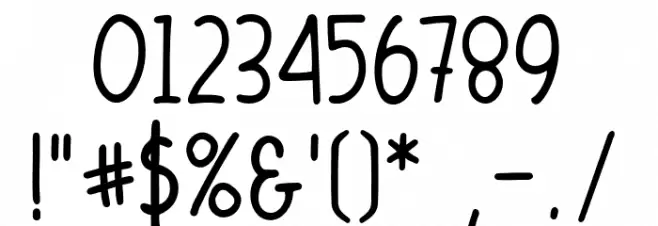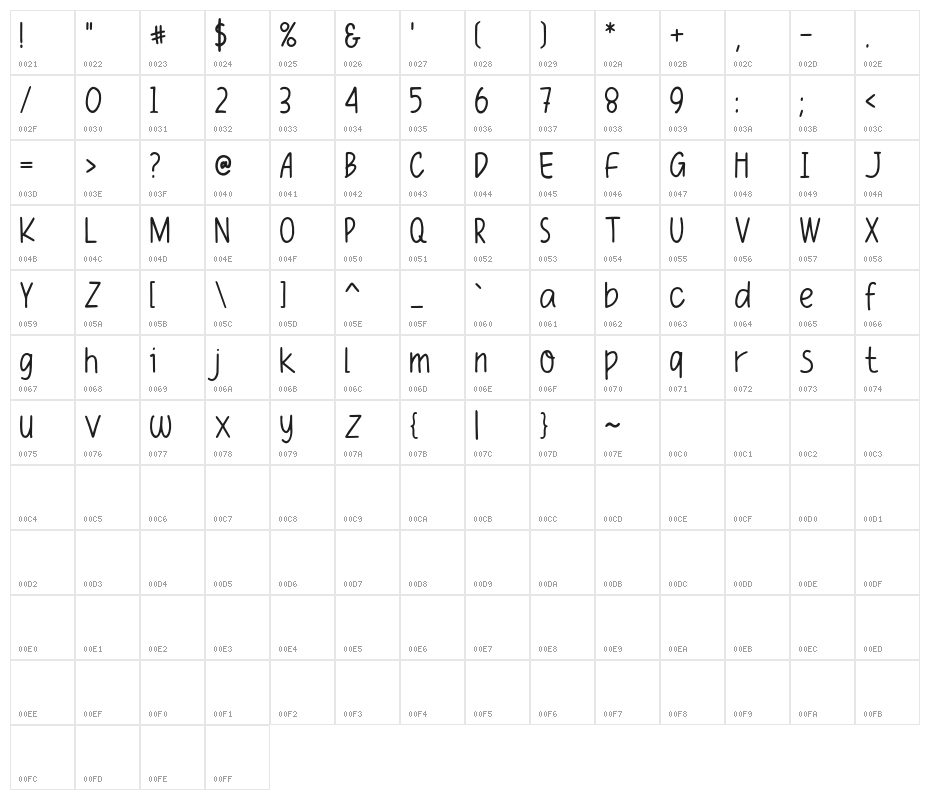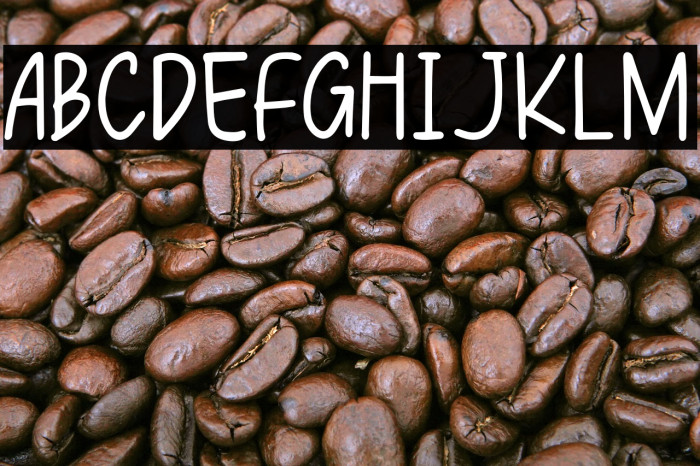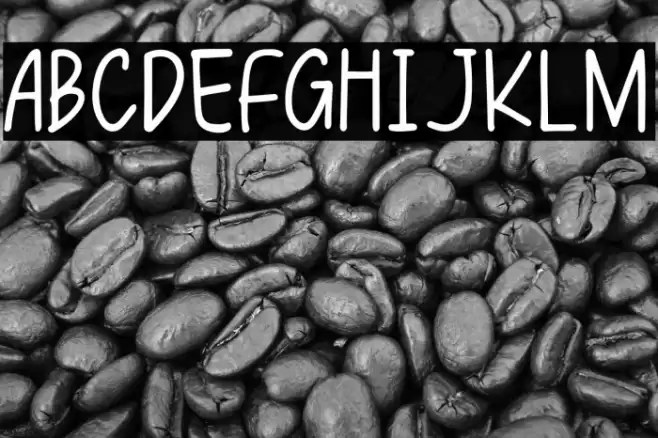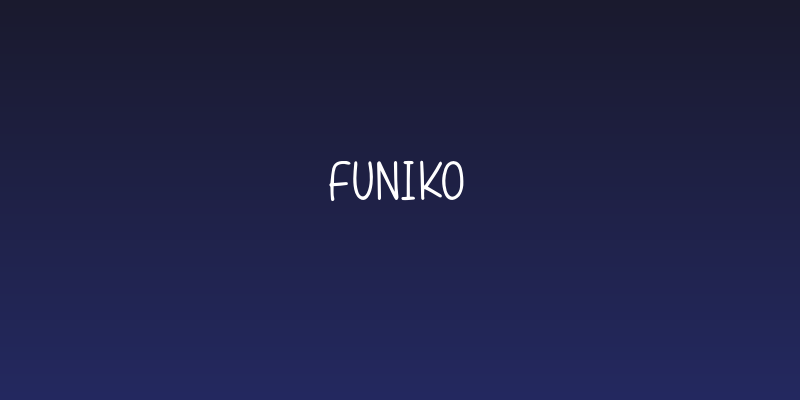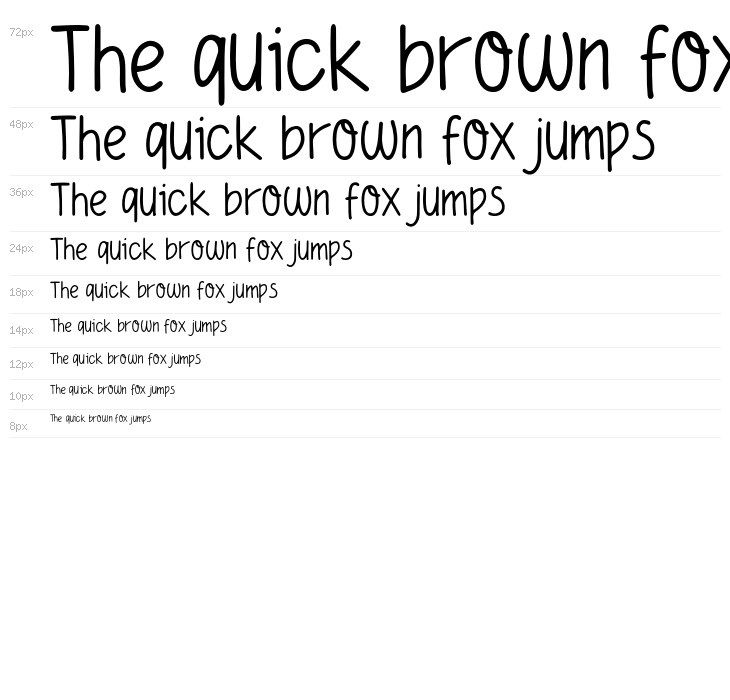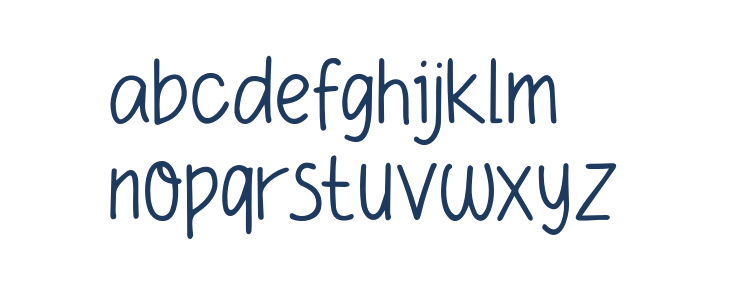
Funiko Font
Funiko Description
This font features a playful and casual handwritten style, characterized by its smooth curves and slightly irregular letterforms. The uppercase and lowercase letters maintain a consistent flow, giving it a friendly and approachable appearance. The numerals and special characters are crafted with the same whimsical touch, ensuring a cohesive look across all glyphs. The overall design is clean and legible, making it suitable for a variety of informal applications. Its unique charm lies in the subtle variations in stroke width, which add a touch of personality without compromising readability.
| Use Case | Headlines, Informal text, Branding |
| Proposed Projects | Ideal for children's books, greeting cards, casual branding, and social media graphics. |